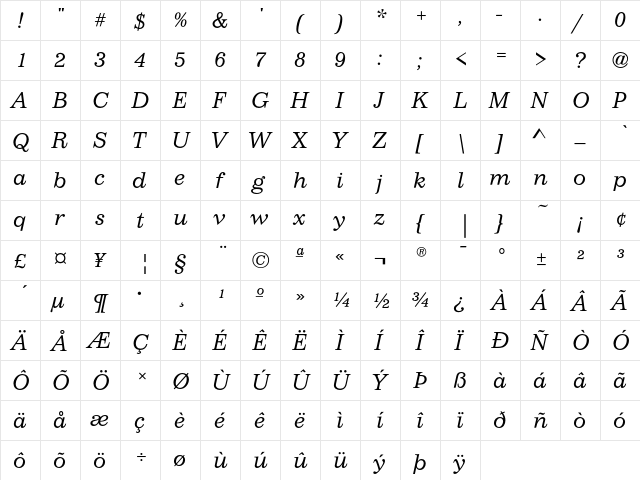
ImpressumEF LightItalic
Design Context for ImpressumEF Typeface
ImpressumEF offers clean, dependable letterforms without strong stylistic allegiance, making it a practical choice for designers who need flexibility. The dynamic lean of this cut emphasises speed and emphasis in any layout. The delicate stroke weight brings airiness and refinement to layouts.
Pro Tip: Use ImpressumEF for emphasis, pull quotes, and subheadings where its slanted energy can add rhythm to the layout.